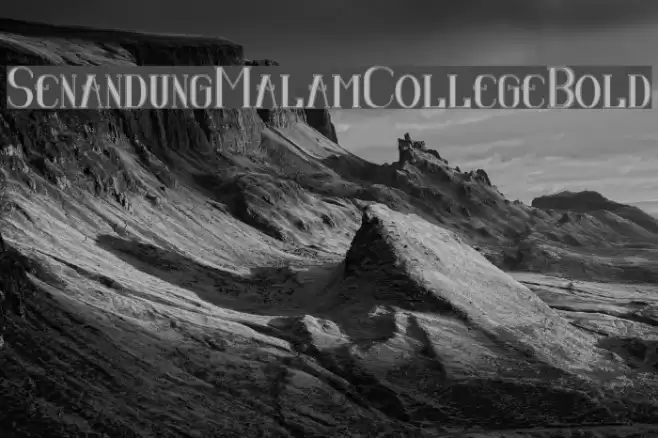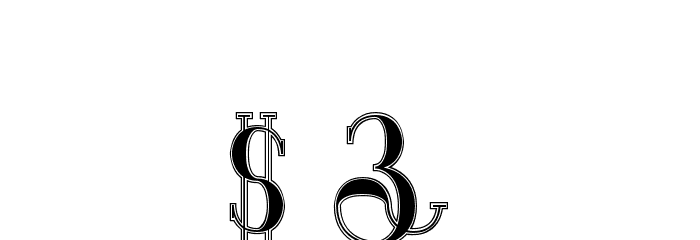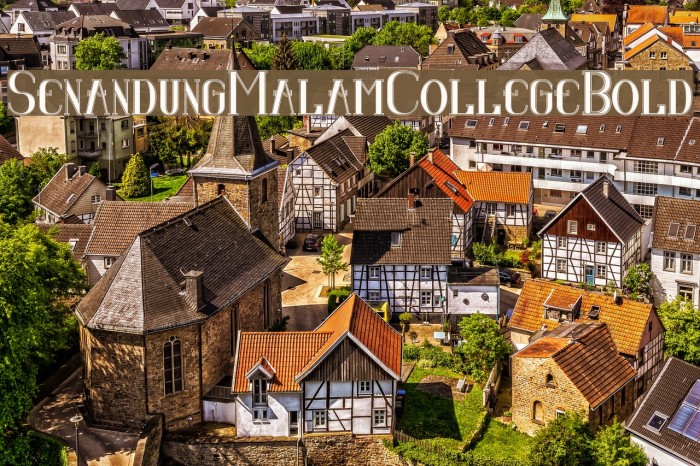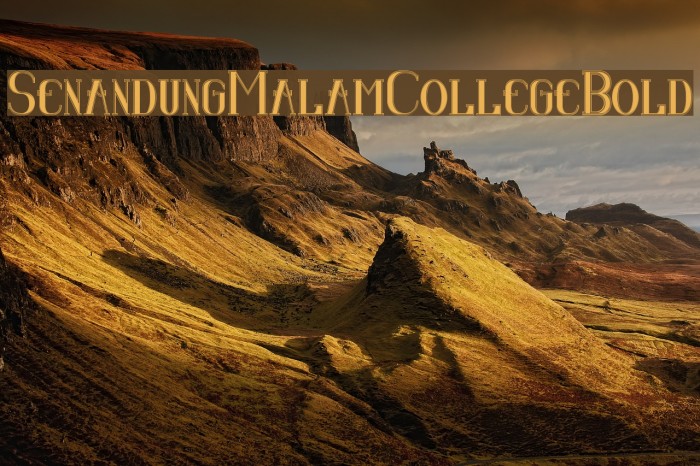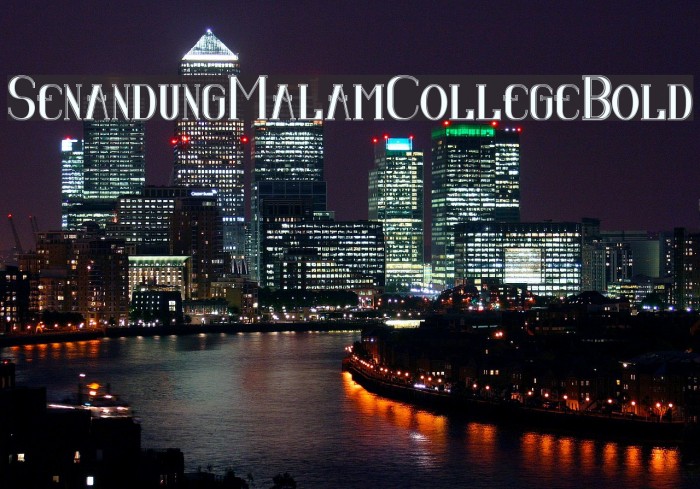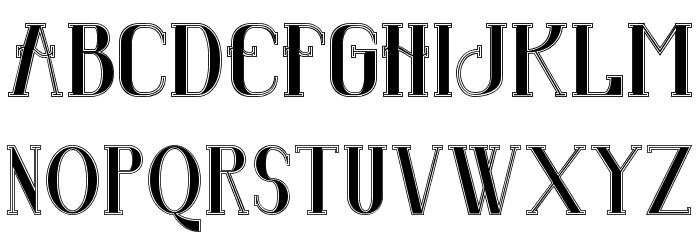
Senandung Malam College Bold Font
Senandung Malam College Bold Description
This font features a bold and striking design with a distinct college-style aesthetic. The uppercase letters are characterized by their strong, angular serifs and a unique double-line shadow effect that adds depth and dimension. The lowercase letters maintain the same boldness and style, ensuring consistency across the typeface. The numerals and special characters are equally bold, with the same shadow effect, making them stand out. This font's design is reminiscent of traditional collegiate and varsity lettering, making it ideal for projects that require a sense of tradition and strength.
A bold, college-style font with angular serifs and a double-line shadow effect from Uncategorized fonts.
- Font: Senandung Malam College Bold
- Proposed Projects: Ideal for sports team branding, college event posters, merchandise, and any project requiring a traditional and bold aesthetic.
- Overall Style: Classic